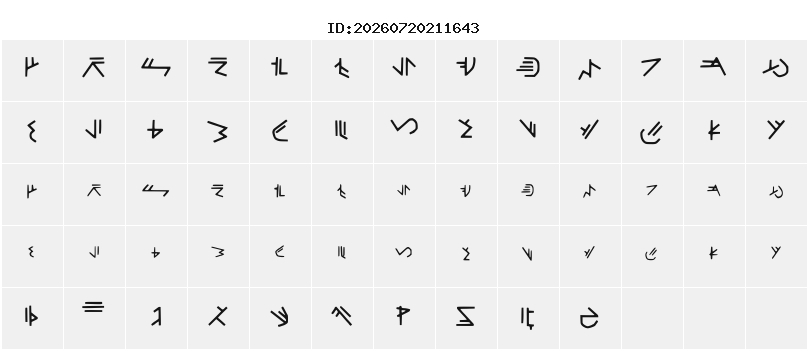
ForerunnerHALO Preview
• Font Name: ForerunnerHALO
• Full Font Name: ForerunnerHALO
About ForerunnerHALO.ttf
ForerunnerHALO.ttf is a modern, elegant sans-serif font designed for ultimate readability and visual harmony. Perfect for branding, headlines, web design, and print materials.